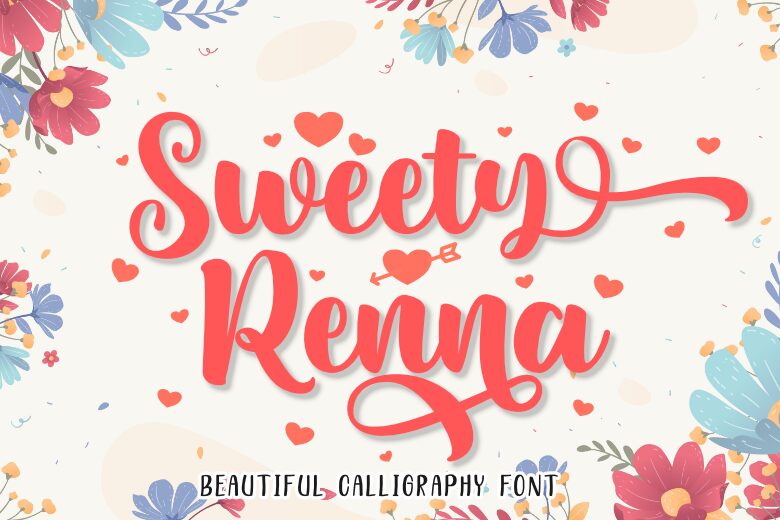
Sweety Renna font is a bold calligraphy font designed by Madatype Studio.
Sweety Renna — Schriftpräsentation
Sweety Renna
Andri Ardianto & Madatype Studio